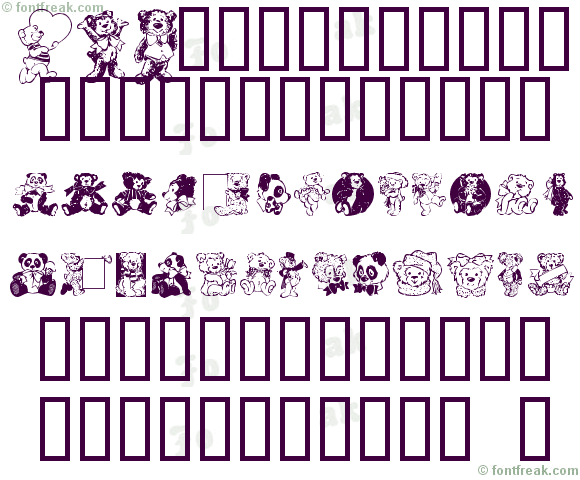
Teddies
About Teddies
Teddies font by Font Freak is a delightful decorative typeface that brings a whimsical charm to any design project. This freeware font, created in 1999, features a playful and endearing style that captures the essence of childhood nostalgia. Teddies is characterized by its rounded strokes and soft edges, creating a friendly and approachable appearance. The design includes delightful decorative elements reminiscent of teddy bears, enhancing its playful nature. The stroke weight is consistent, providing a balanced look, while the spacing allows for easy readability, making it suitable for various applications.
This font is perfect for several specific use cases. It can be used in children's book covers, where its playful nature can attract young readers. Teddies is also an excellent choice for birthday party invitations, adding a fun and festive touch that captures the joy of celebration. Furthermore, it works wonderfully for nursery wall art, creating a warm and inviting atmosphere in children's rooms. Wedding invitations that aim for a whimsical theme can also benefit from the unique character of this font, making them stand out to guests. Lastly, Teddies can be effectively used in promotional materials for toy stores or children's events, drawing in the target audience with its charming design.
Targeted toward graphic designers, small business owners, and content creators looking to infuse their projects with a sense of playfulness, Teddies font free download offers an excellent resource for anyone in need of a cheerful typeface. The distinctive style of this font sets it apart, making it not just a typeface, but a delightful addition to any design toolkit. Its unique character and versatility make it a must-have for creative projects that aim to evoke joy and warmth.